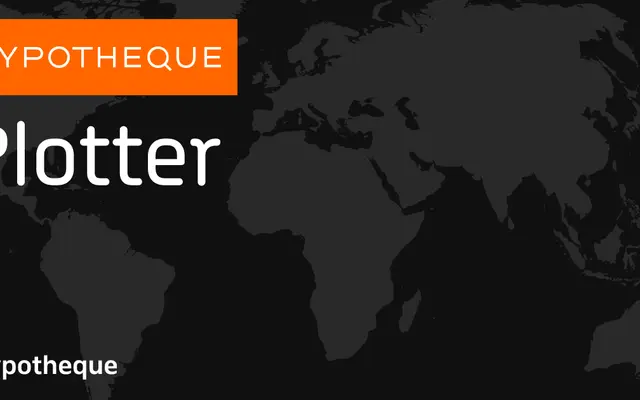
Plotter specimen from Typotheque
A type system from Typotheque built around a geometric sans core, extending into stencil, monospaced and layered display variants with shared visual logic across all subfamilies.
Structured as a cohesive system, Plotter covers five distinct subfamilies: a text sans, a stencil cut, a monospaced variant, a mono stencil, and a display family with separate layerable components. Each subfamily runs through Light to Bold, with the Display offering individual layer files for colour and depth effects. The family addresses a wide range of typographic needs from running text to technical labelling and headline work, all held together by a consistent geometric character.
Plotter uses clean, constructed letterforms consistent with a geometric sans tradition, extended into stencil, mono and display subfamilies with layering capabilities that suggest technical and mechanical applications.